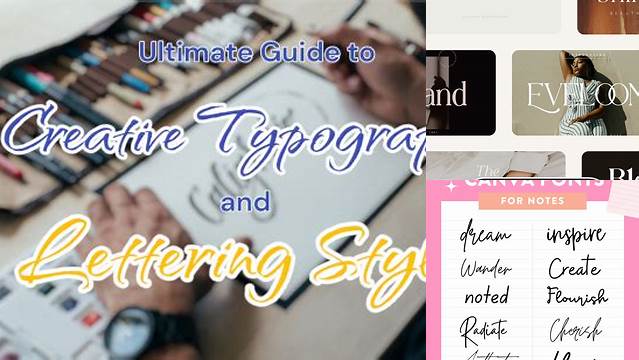
Free Script Fonts: Your Guide To Elegant Typography
Hey guys! Ever find yourself staring at a blank canvas, whether it's a website, a poster, or even just a simple greeting card, and feeling a bit… uninspired? You're not alone! One of the quickest ways to breathe life into any design is by choosing the perfect font. And if you're looking to add a touch of elegance, personality, or just a hint of fun, free script fonts are your secret weapon. This article is your ultimate guide to navigating the wonderful world of script fonts, finding the best free script fonts, and using them like a pro. Let's dive in!
What Exactly Are Script Fonts?
Okay, so before we get started, let's make sure we're all on the same page. What exactly are script fonts? Simply put, script fonts are designed to mimic handwriting. They're all about that personal touch, the flowing lines, and the feeling of something crafted by hand. Think of them as the font equivalent of a handwritten letter – full of character and charm. The best script fonts often have those amazing little flourishes and swirls that make them unique and help them stand out. Script fonts come in a bunch of different styles, like formal and elegant scripts that you might see on a wedding invitation, or more casual, playful scripts perfect for a logo or social media post. These fonts try to imitate the flow of a pen or brush. This means that each script font has a unique feel to it, just like everyone's handwriting is different. The beauty of script fonts lies in their ability to communicate a feeling or set a specific tone, from sophistication to whimsy, which is why they are so popular for various design applications. Script fonts are great if you want to make a design look more personal or friendly. If you are working on a project that calls for creativity and originality, script fonts are the way to go. The options are nearly endless. Choosing the right one can transform a design from good to amazing. Script fonts are also known for their versatility. You can use them for headlines, body text, or even as accent elements to add visual interest.
Why Use Free Script Fonts?
- Creative Market: Creative Market is a marketplace where you can find a wide variety of design assets, including fonts. They often have free font bundles or freebies, so it's worth checking regularly to see if they're offering any free script fonts. This marketplace is designed to provide designers with a variety of tools, including fonts, graphics, and templates. Its diverse library makes it a popular option for both personal and commercial purposes. By regularly checking Creative Market for free script fonts, you can build your design resources without spending a lot of money. You can easily explore the available font options and create a comprehensive design toolkit. This is a cost-effective way to access high-quality assets.
These sites are a great starting point, but remember to always read the license agreement for each font before using it. This will tell you exactly how you're allowed to use the font (personal or commercial use, etc.).
Tips for Using Script Fonts Effectively
Okay, so you've found some amazing free script fonts! Now, how do you use them without making your design look, well, a bit messy? Here are some tips and tricks to help you use script fonts effectively:
- Use Script Fonts Sparingly: Script fonts are fantastic for adding personality, but they can be hard to read if you use them too much. The best practice is to use script fonts for headlines, titles, or short bursts of text, such as a logo. Don't use them for large blocks of body text. Doing so will help maintain readability and make the design more appealing to the eye. This will ensure that your design is balanced and easy to navigate. You should also make use of visual hierarchy when using script fonts. This will guide the viewer's eye and make sure that the key information is clear.
- Pair Script Fonts with Sans-Serif or Serif Fonts: Combining script fonts with other fonts will make your designs look even more stylish. Pairing a script font with a clean sans-serif font or a classic serif font creates a balanced and visually appealing contrast. This combination will also improve readability by providing a clear distinction between different parts of the text. Sans-serif fonts offer a modern and clean feel that contrasts beautifully with the fluidity of a script font, making it a smart pairing for headlines and subheadings. Serif fonts offer a sense of tradition and elegance. They're a great way to complement a script font, especially in formal or classic designs. This mix ensures that the design is readable and stylish.
- Adjust the Kerning (Letter Spacing): Kerning is the space between individual letters. With script fonts, kerning is especially important. Sometimes, the letters in a script font can overlap or be spaced too far apart. Take the time to adjust the kerning to ensure that the letters flow smoothly and are easy to read. Kerning can make or break the look of a script font, so you should be very careful when making adjustments. You will be able to adjust the spacing using design software like Adobe Photoshop or Illustrator. The subtle adjustments of kerning can enhance the overall visual appeal and readability of your text.
- Consider the Context: Think about the purpose of your design. Is it a wedding invitation? A website header? A social media post? The context will help you decide which script font is most appropriate. Consider the overall tone and message you want to communicate. The choice of the font will make a big difference. A more formal, elegant script might be suitable for a wedding invitation, while a more casual, playful script is perfect for social media. Make sure that the font style matches the content. Carefully selecting the perfect script font for your project's specific context ensures your message is delivered effectively.
- Test Your Fonts: Before you finalize your design, test out the script font on different devices and in different sizes. Make sure it's readable and looks good in various contexts. Check how the font appears at different sizes, which will help you make sure that readability is maintained across various platforms and devices. Also, test the font against different backgrounds to make sure it stands out. By doing so, you can guarantee that the design is beautiful and usable.
Avoiding Common Mistakes When Using Script Fonts
Even the most experienced designers can make mistakes. Here are some common pitfalls to avoid when using free script fonts:
- Overusing Script Fonts: As mentioned earlier, using too much script font can make your design difficult to read. Reserve script fonts for specific elements to add visual interest. This will ensure that your design is easy to navigate and the most important information is clearly visible. Excessive usage can distract the audience and detract from the message. Make sure that your use of the script font is purposeful and in line with your overall design goals.
- Choosing the Wrong Script Font: The style of the script font should align with your design's message and target audience. Don't use a formal script font for a casual project, or vice versa. If the font clashes with the content, it will ruin the design. Make sure the font matches the brand's personality and the overall mood of your design. Select the font that best represents your brand to capture the audience's attention.
- Ignoring Readability: A beautiful font that's hard to read is useless. Ensure that your chosen script font is readable, especially at smaller sizes. The focus should be on balancing aesthetics with functionality. The font choice will influence your design's user experience. Pay close attention to letter spacing, kerning, and line height to improve readability. It's very important to test your design on various devices and in different sizes to guarantee that the font is legible.
- Using Low-Quality Fonts: Not all free script fonts are created equal. Some fonts are poorly designed and can look pixelated or distorted. Always choose fonts from reputable sources. The use of high-quality script fonts makes sure that your design looks polished and professional. Always test out a font before fully incorporating it into your design. Make sure that the font has clean lines and consistent strokes. Check for any obvious design flaws to avoid any issues.
- Ignoring Licensing: Always check the font's license before using it. Some fonts are only free for personal use, while others are free for commercial use. Using a font outside of the permitted use could result in legal consequences. Checking the licensing details is very important to protect your project. Always read the terms of the font licenses carefully to make sure that you are following the rules. If you plan to use a script font commercially, make sure that the font license allows it.
Final Thoughts: Embrace the Beauty of Script Fonts!
So there you have it! Your complete guide to navigating the world of free script fonts. Armed with this knowledge, you're now ready to find the perfect script font for your next project and make your designs shine. Remember to have fun, experiment, and let your creativity flow. These fonts can truly transform your design. Start exploring the many amazing free script fonts out there, and enjoy the process of creating something beautiful and unique. Happy designing!